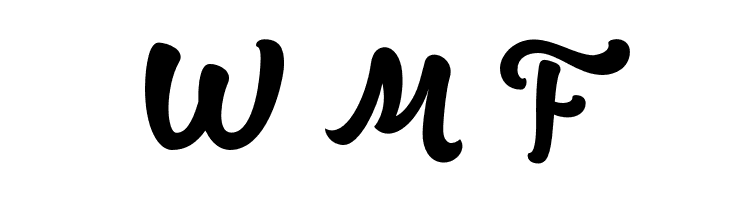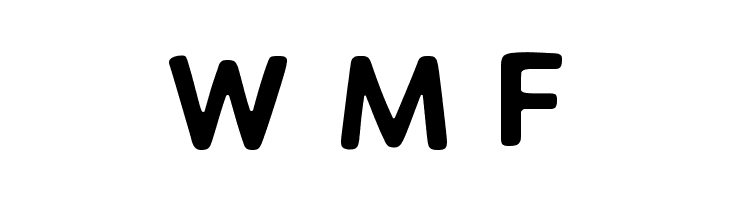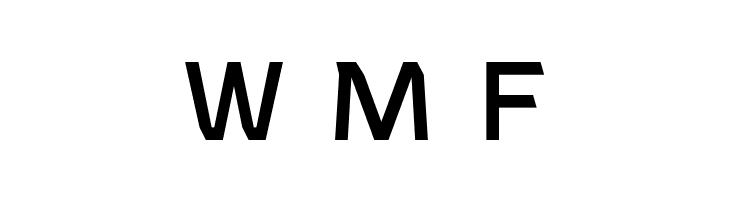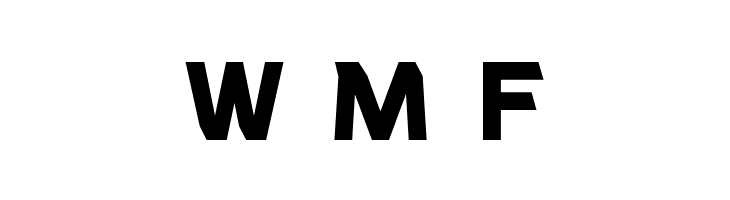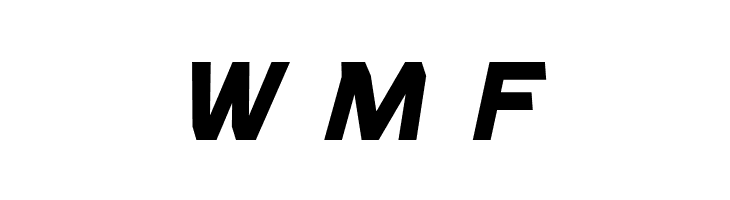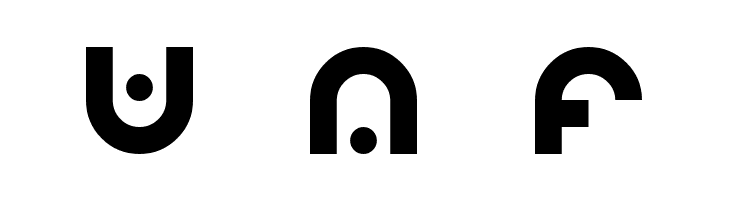
A futuristic, decorative font with interconnected circular motifs and bold strokes.
A decorative font with characters formed by interconnected circles, offering a playful and modern look.
Tactile dot-based font for Braille literacy.
A casual handwritten font with fluid, irregular strokes.
A bold, pixelated font with a retro arcade game style.
An ornate blackletter font with bold, angular strokes and intricate details.
A bold, angular graffiti-style font with dynamic, fragmented characters.
An abstract, artistic font with irregular, distorted letterforms.
A playful, hand-drawn font with bold, irregular shapes.
A dotted, handwriting practice font ideal for educational use.
A playful, handwritten font with rounded edges and a casual style.
A bold, cursive font with a playful, handwritten style.
A bold, rounded sans-serif font with smooth curves and uniform strokes.
A bold, geometric font with a modern, futuristic style.
Bold, geometric font with angular lines and a modern aesthetic.
A bold, geometric font with sharp edges and a modern industrial feel.
A modern, angular italic font with a dynamic, forward-moving style.
A bold, geometric font with a modern, digital aesthetic.
A bold, italicized font with geometric shapes and angular lines for a modern look.
A bold, italicized font with a modern, angular design.
A bold, modern typeface with strong, uniform letterforms.
A bold, modern font with strong, confident letterforms and excellent readability.
A bold, geometric font with a futuristic and modern aesthetic.
A bold, angular font with a futuristic, geometric style.
A display font composed of illustrated portrait glyphs instead of traditional letterforms.
A dotted, italic font ideal for handwriting practice and educational use.
A dotted, educational font ideal for handwriting practice.
A bold, contour-styled font with a modern, decorative flair.
A bold serif font with a 3D shadow effect, perfect for impactful headlines.
Placeholder glyphs indicating unsupported characters.